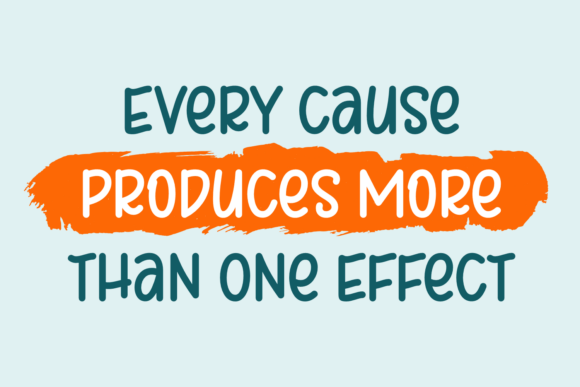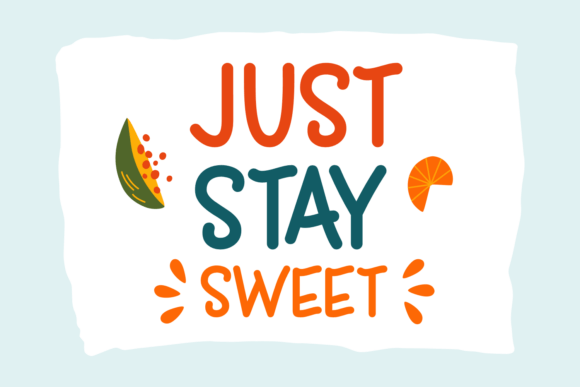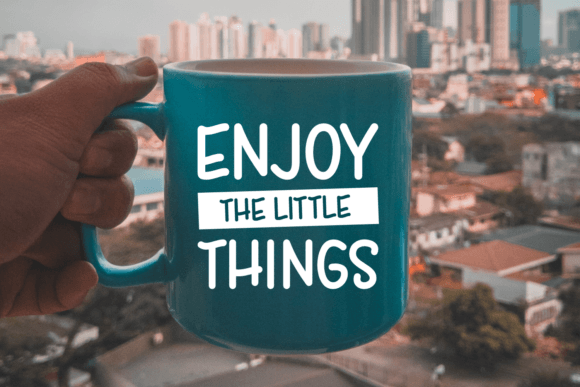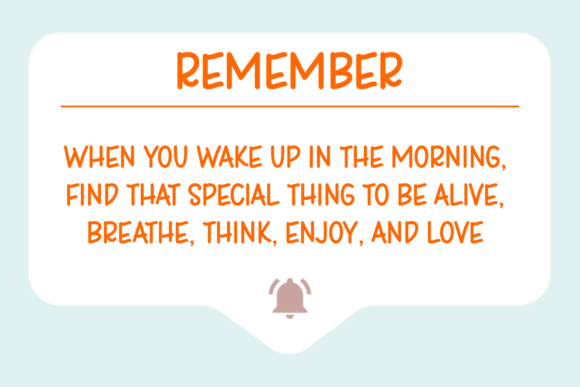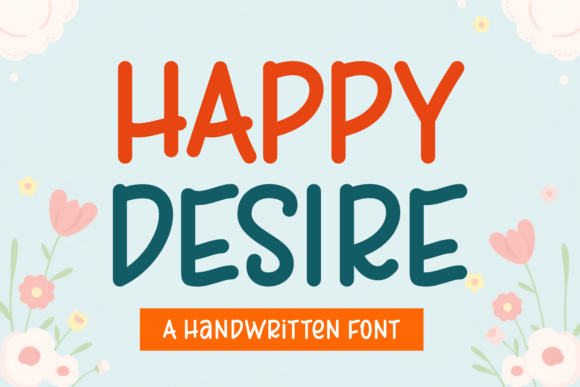
Introducing Happy Desire Font: The Perfect Playful Handwritten Font for Your Creative Projects
Are you looking for a font that can add a touch of warmth and personality to your creative endeavors? Look no further than Happy Desire Font! This playful handwritten font is designed to bring a casual, breezy charm to your designs, making it perfect for personal projects, invitations, social media posts, and fun designs.
What Makes Happy Desire Font So Special?
Happy Desire Font is a unique and lively font that is sure to capture the attention of your audience. Its smooth, flowing strokes and lively energy make it perfect for adding a personal touch to any design. Whether you’re creating a wedding invitation, a social media post, or a fun design project, Happy Desire Font is the perfect choice.
Key Features of Happy Desire Font
- Playful Handwritten Style: Happy Desire Font features a playful handwritten style that is perfect for adding a personal touch to your designs.
- Smooth Flowing Strokes: The font’s smooth flowing strokes give it a lively and energetic feel that’s sure to capture the attention of your audience.
- Casual Breezy Charm: Happy Desire Font has a casual, breezy charm that makes it perfect for personal projects, invitations, social media posts, and fun designs.
- Warm and Inviting: The font’s warm and inviting style makes it perfect for adding a touch of personality to any creative endeavor.
Happy Desire Font is perfect for designers and crafters who want to add a personal touch to their designs. Whether you’re creating digital designs or handmade crafts, this font is sure to inspire your creativity. Use it to create:
- Personalized Invitations: Create personalized invitations for weddings, birthday parties, and other special occasions.
- Social Media Posts: Add a touch of personality to your social media posts and make them stand out from the crowd.
- Fun Designs: Use Happy Desire Font to create fun designs for kids’ parties, baby showers, and other celebrations.
- Handmade Crafts: Add a personal touch to your handmade crafts, such as scrapbook pages, cards, and gift tags.
Why Choose Happy Desire Font?
There are many fonts to choose from, but Happy Desire Font stands out from the rest. Here are just a few reasons why:
- Unique and Playful Style: Happy Desire Font has a unique and playful style that’s sure to capture the attention of your audience.
- Easy to Read: The font is easy to read, making it perfect for use in a variety of designs.
- Versatile: Happy Desire Font is versatile and can be used in a variety of designs, from digital designs to handmade crafts.
- High-Quality: The font is high-quality and is sure to make your designs look professional.
If you’re looking for a font that can add a touch of warmth and personality to your creative endeavors, look no further than Happy Desire Font. This playful handwritten font is perfect for personal projects, invitations, social media posts, and fun designs. With its smooth flowing strokes and lively energy, Happy Desire Font is sure to capture the attention of your audience and make your designs stand out from the crowd.